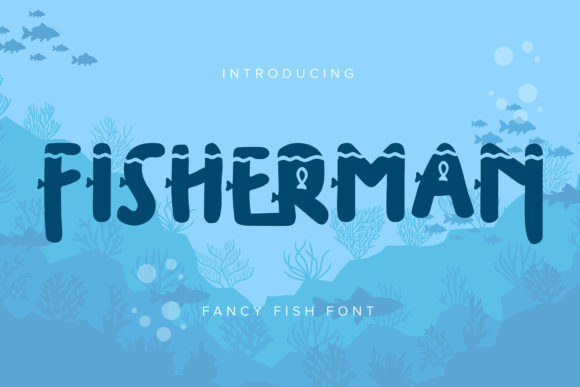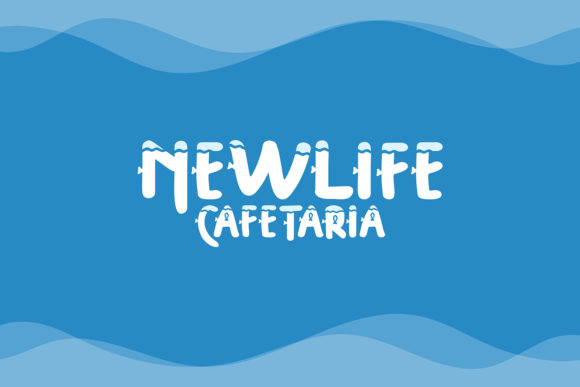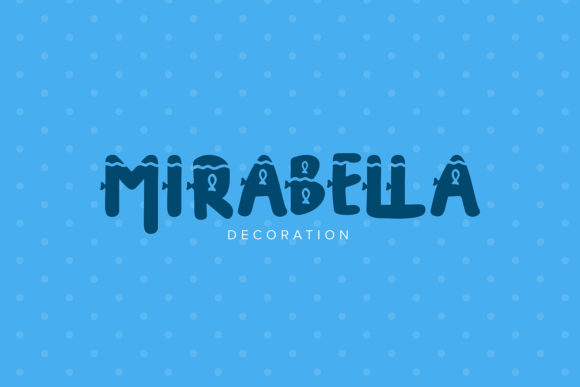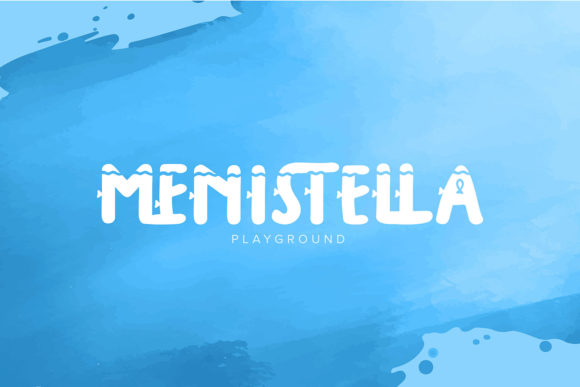
Fisherman Font: A Unique Decorative Font with Playful Fish Ornaments
About the Fisherman Font
Explore the possibilities with Fisherman Font, a font that offers both beauty and functionality. Fisherman is an incredibly unique and interesting decorative font, featuring fish ornaments. Add this font to your favorite creative ideas and notice how it makes them come alive!
Fisherman’s playful, slightly quirky personality makes it ideal for headlines, short text blocks on packaging, or eye-catching elements in posters and branding for businesses with a nautical theme or a fun, approachable image. Its decorative nature, however, makes it unsuitable for body text or UI elements where readability is paramount. Long paragraphs set in Fisherman would be difficult to read.
Pairing Fisherman with a clean sans-serif like Open Sans for body copy provides excellent contrast and readability. For a more sophisticated look, consider pairing it with a classic serif like Garamond. If a more whimsical feel is desired, a script font with a similar weight could create a cohesive yet varied aesthetic.
The font’s overall mood is friendly and inviting, best suited for projects that need a touch of personality and charm without being overly serious or formal.
Fisherman Font Usage Examples
Fisherman Font Example